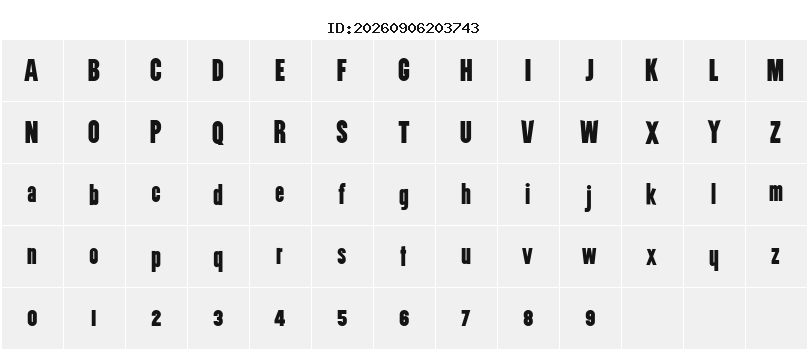
• Font Name: Utility
• Font Style: BoldCondensed
• Font ID: Macromedia Fontographer 4.1.5 Utility BoldCondensed
• Full Font Name: Utility BoldCondensed
• Version: Macromedia Fontographer 4.1.5 9/25/05
• PostScript Name: UtilityBoldCondensed
• Character Count: 66
About Utility.ttf
Utility.ttf is a modern, elegant sans-serif font designed for ultimate readability and visual harmony. Perfect for branding, headlines, web design, and print materials.